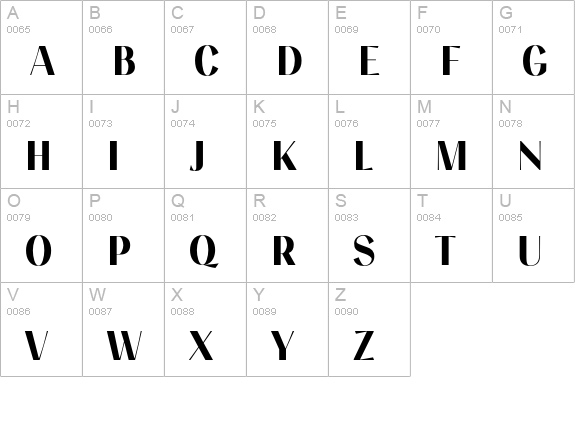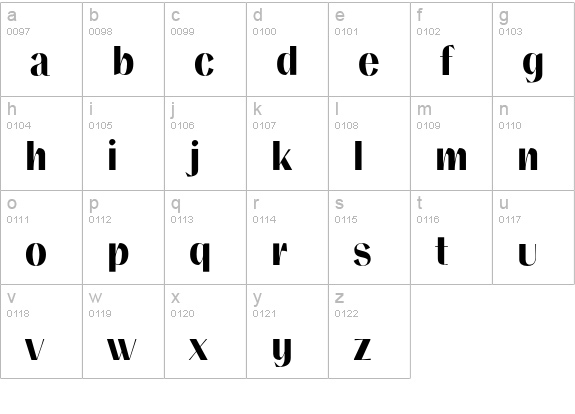
NumskillBold Font Details
NumskillBold is a sleek and modern font that exudes confidence and sophistication. Its bold and striking characters make a statement while maintaining readability and clarity. Perfect for headlines, titles, and branding materials, NumskillBold commands attention and leaves a lasting impression. What sets NumskillBold apart is not only its stylish design, but also the fact that it is available for free download at FontsMarket.com. This means you can elevate your projects with this premium font without any cost, making it a valuable addition to your design toolkit. Don't miss out on the opportunity to enhance your creations with NumskillBold - download it today and unleash your creativity!